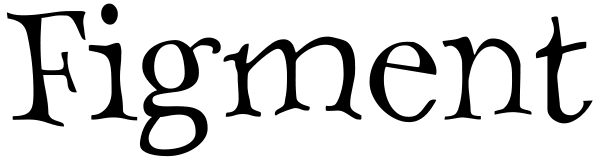
Figment
Like a figment of the imagination, this very readable font wafts across the page, leading the reader into a world of enchantment. Ethereal and fluid, it is reminiscent of sorcerer's spells written on ancient parchment. It manages, by the distortion...